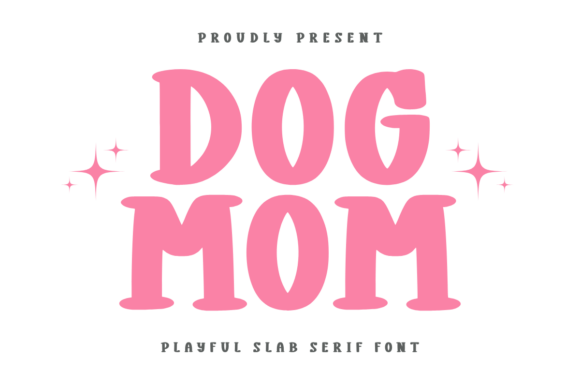
Introducing the Dog Mom Font: A Playful and Bold Slab Serif Font for Craft Lovers and Pet Moms
The Dog Mom Font is a new and exciting addition to the world of typography, designed specifically for craft lovers, pet moms, and creative projects. This playful and bold slab serif font is sure to bring a cheerful touch to any design, making it perfect for a wide range of applications.
What is the Dog Mom Font?
The Dog Mom Font is a carefully crafted slab serif font that exudes a cute and bold personality. Its unique design makes it stand out from other fonts, and its versatility ensures that it can be used in a variety of contexts. Whether you’re working on a craft project, creating content for your pet blog, or designing a logo for your pet-related business, the Dog Mom Font is sure to make a lasting impression.
Key Features of the Dog Mom Font
The Dog Mom Font boasts a range of features that make it an ideal choice for craft lovers and pet moms. Some of its key features include:
- Playful and bold design: The Dog Mom Font has a fun and energetic vibe that’s perfect for creating eye-catching designs.
- Slab serif style: The font’s slab serif style gives it a sturdy and dependable feel that’s perfect for headlines and titles.
- Cute and bold personality: The Dog Mom Font has a unique personality that’s both cute and bold, making it perfect for designs that require a touch of whimsy.
- Highly versatile: The font is highly versatile and can be used in a range of contexts, from craft projects to pet-related businesses.
Who is the Dog Mom Font for?
The Dog Mom Font is designed specifically for craft lovers, pet moms, and creative projects. This includes:
- Craft lovers: If you love crafting and making things, the Dog Mom Font is a great choice for your projects.
- Pet moms: If you’re a pet mom looking for a font that’s perfect for your pet blog or social media channels, the Dog Mom Font is a great option.
- Creative projects: The Dog Mom Font is perfect for any creative project that requires a playful and bold font.
How to Use the Dog Mom Font
The Dog Mom Font can be used in a variety of ways, depending on your design needs. Here are a few ideas:
- Headlines and titles: The Dog Mom Font is perfect for headlines and titles, where its bold and playful design can really make an impact.
- Signs and posters: The font’s slab serif style makes it a great choice for signs and posters, where it’s easy to read and understand.
- Social media graphics: The Dog Mom Font is perfect for social media graphics, where its playful and bold design can help your content stand out.
- Craft projects: The font is a great choice for craft projects, such as making cards, gift tags, and other DIY crafts.
Benefits of Using the Dog Mom Font
There are many benefits to using the Dog Mom Font in your designs. Some of the most significant advantages include:
- Unique and eye-catching design: The Dog Mom Font has a unique and eye-catching design that’s sure to grab attention.
- Highly versatile: The font is highly versatile and can be used in a range of contexts.
- Easy to read: The font’s slab serif style makes it easy to read and understand, even at small sizes.
- Perfect for creative projects: The Dog Mom Font is perfect for creative projects that require a playful and bold font.
Tips for Using the Dog Mom Font Effectively
Here are a few tips for using the Dog Mom Font effectively in your designs:
- Use it for headlines and titles: The Dog Mom Font is perfect for headlines and titles, where its bold and playful design can really make an impact.
- Pair it with other fonts: The Dog Mom Font can be paired with other fonts to create a unique and eye-catching design.
- Experiment with colors: The font’s bold and playful design makes it perfect for experimenting with different colors and color schemes.
- Keep it simple: Don’t be afraid to keep your design simple and clean, using the Dog Mom Font to add a touch of whimsy and personality.
The Dog Mom Font is a playful and bold slab serif font that’s perfect for craft lovers, pet moms, and creative projects. Its unique design and highly versatile nature make it a great choice for a wide range of applications, from headlines and titles to signs and posters. With its easy-to-read design and cute and bold personality, the Dog Mom Font is sure to bring a cheerful touch to any design.